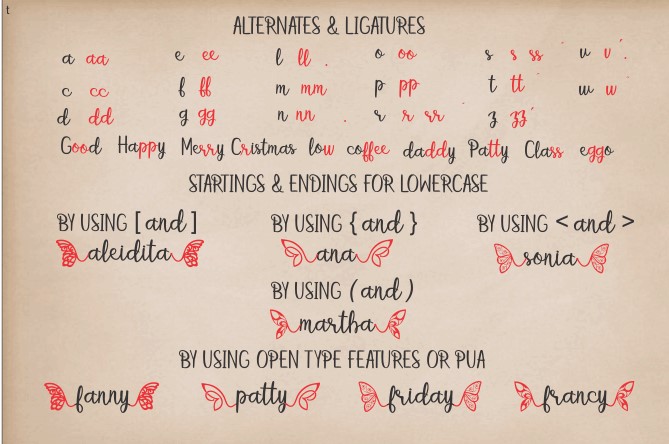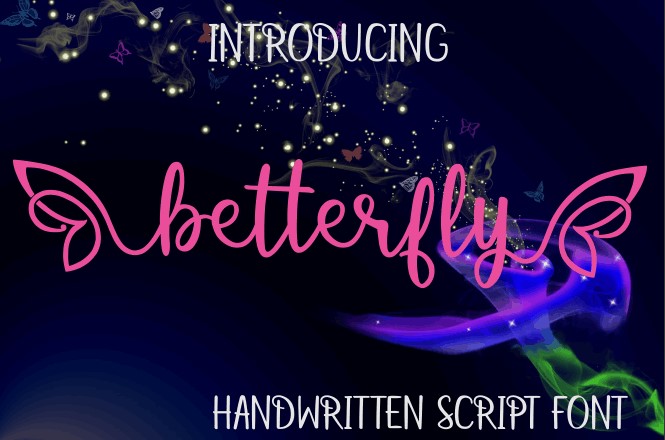
Betterfly Font
Betterfly Font is considered as the unique text generator. This typeface is similar to the masterblush font and it is available for free download. Come with open type function with quite a whole lot of alternates. As a result, permit’s have a look at the font texture pix we put in proper right here to recognize it greater specific.t combines beneficiant of archive font with a minimal variant in stroke weight.
This font fashion is an excellent healthy for designing logos, such as slogans to products, typing books, or growing agency typefaces. Betterfly Font Free lusya first-class uses for wedding invitation, invites, signature, typography product packaging, header, products, social media & greeting playing cards and plenty of more. Consequently, it will become a large, but quirky disposition for you to without difficulty be inserted into any system. So, we consider, this fashionable font that is similar to conthrax font will certainly create high-notch designs in maintaining collectively along with your standards.